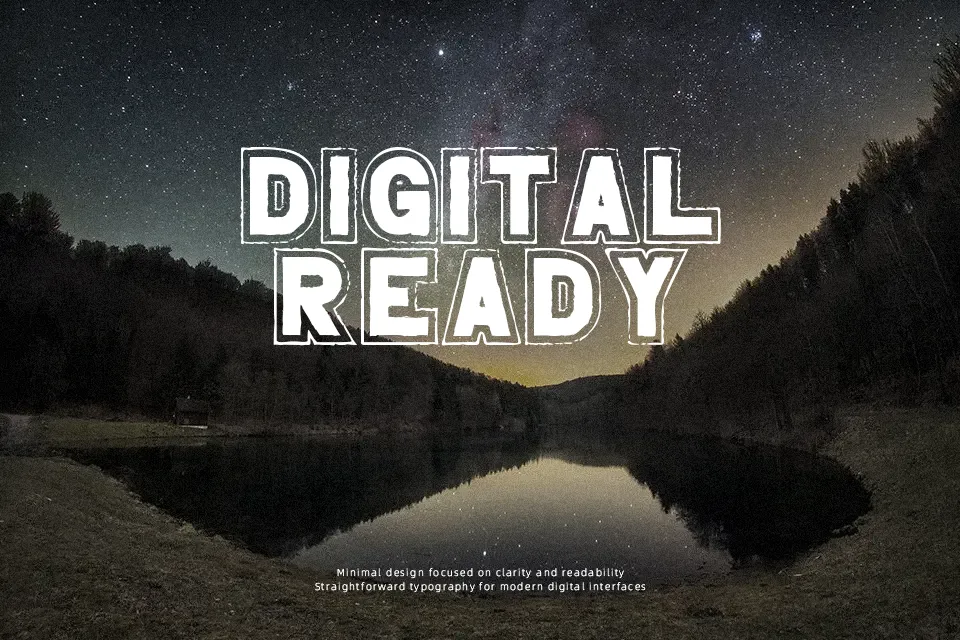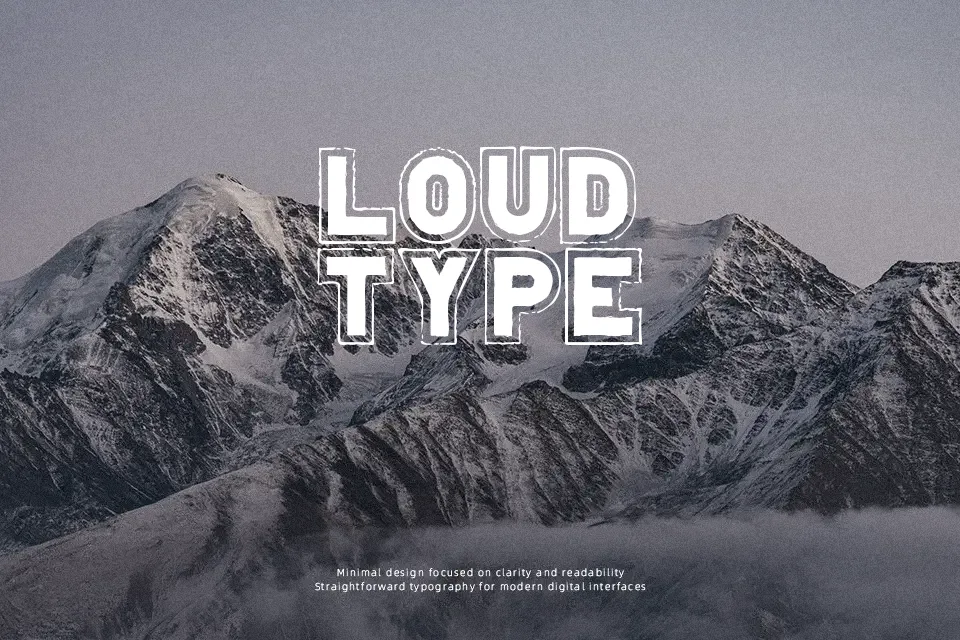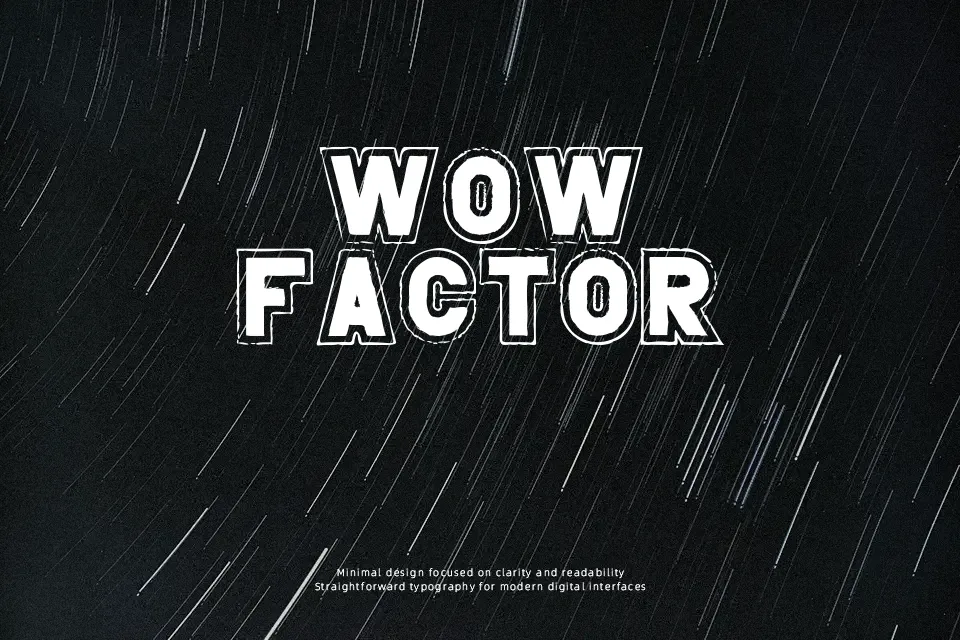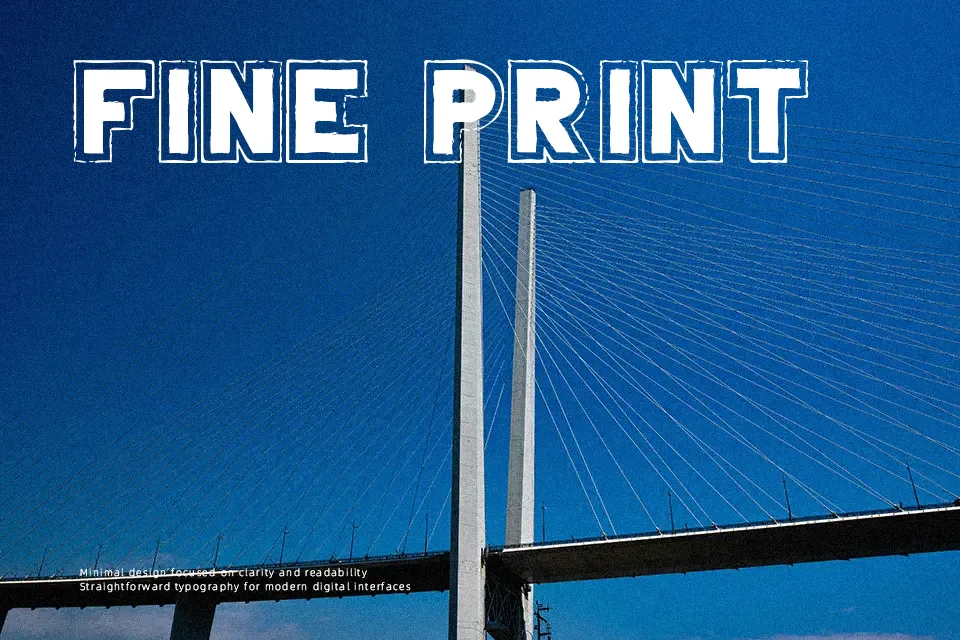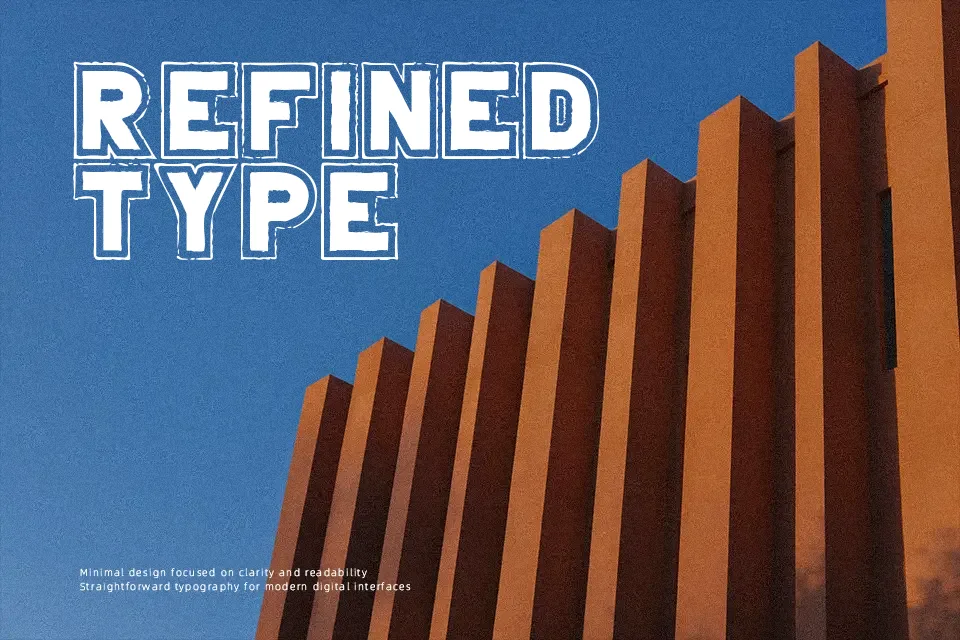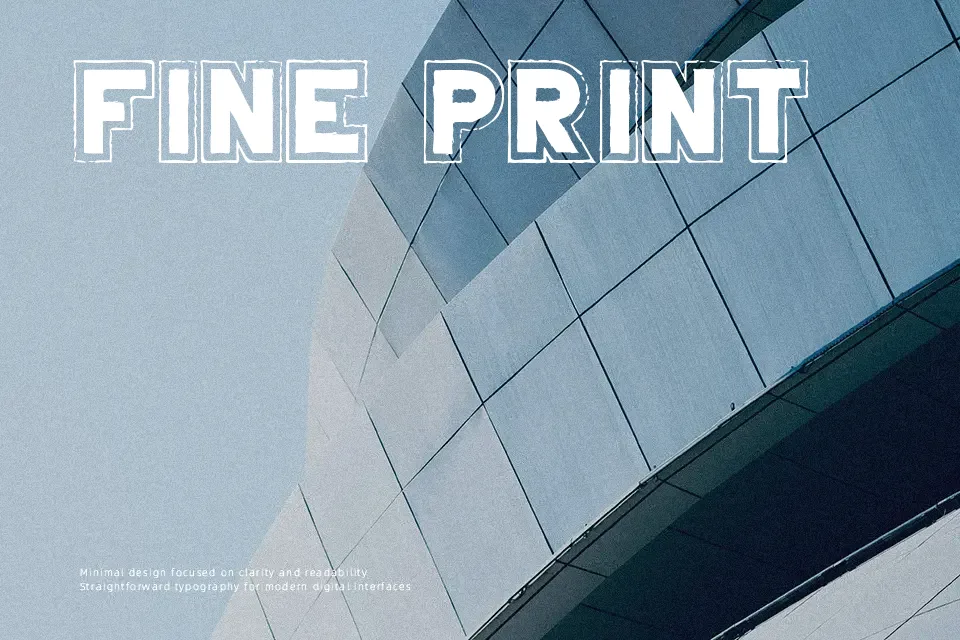
Roughstar Font
Designed by Calligraphy Fonts
Roughstar Font establishes a strong vintage presence with its heavily eroded letterforms and sturdy, old-school proportions. The textured strokes simulate authentic wear and tear, giving the typography a rugged, distressed appearance that immediately captures attention. Designed with balanced, robust character widths, the typeface maintains a commanding rhythm across short words and bold statements. The distressed details become muddy and lose their definition at smaller sizes, making this design far less effective for continuous reading. However, this heavy weathering makes it highly effective for prominent display applications, as the organic imperfections add genuine character to apparel graphics, music posters, and industrial packaging.
vintage apparel graphics, retro sports branding, music festival posters, industrial product packaging
small paragraph text, dense editorial layouts, corporate financial reports
Perfect for branding, fashion, and headline, with a bold and decorative style.